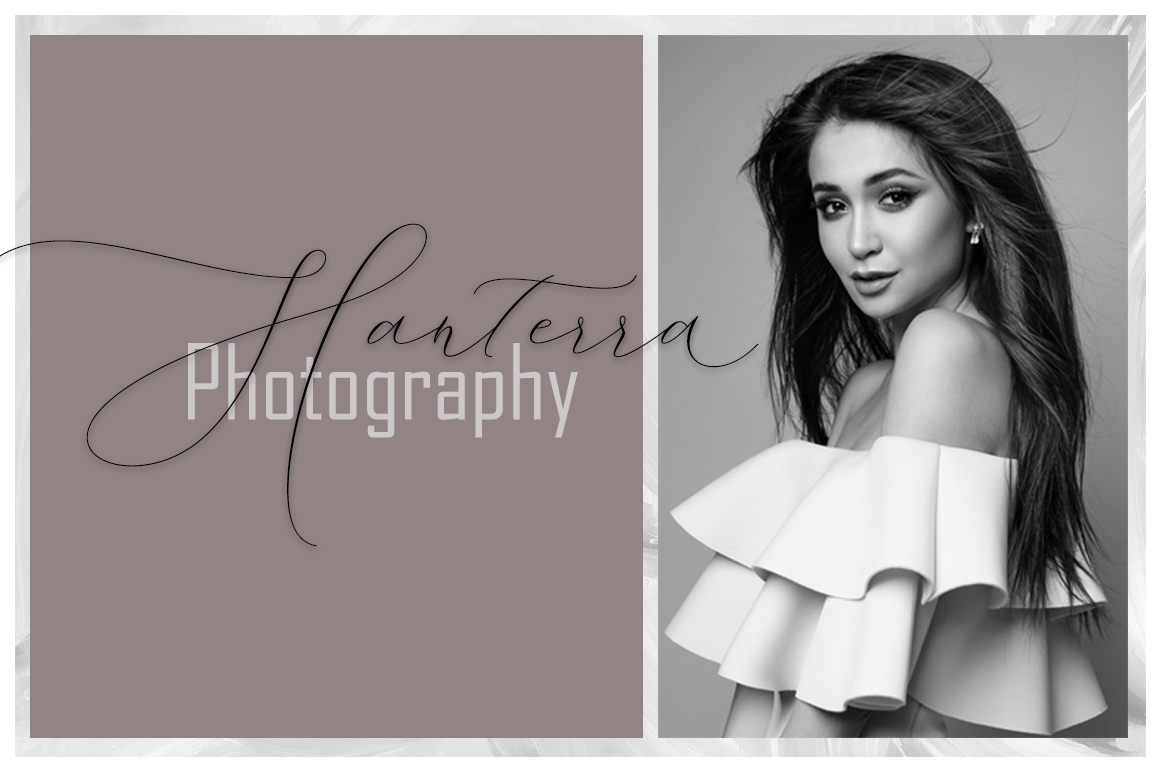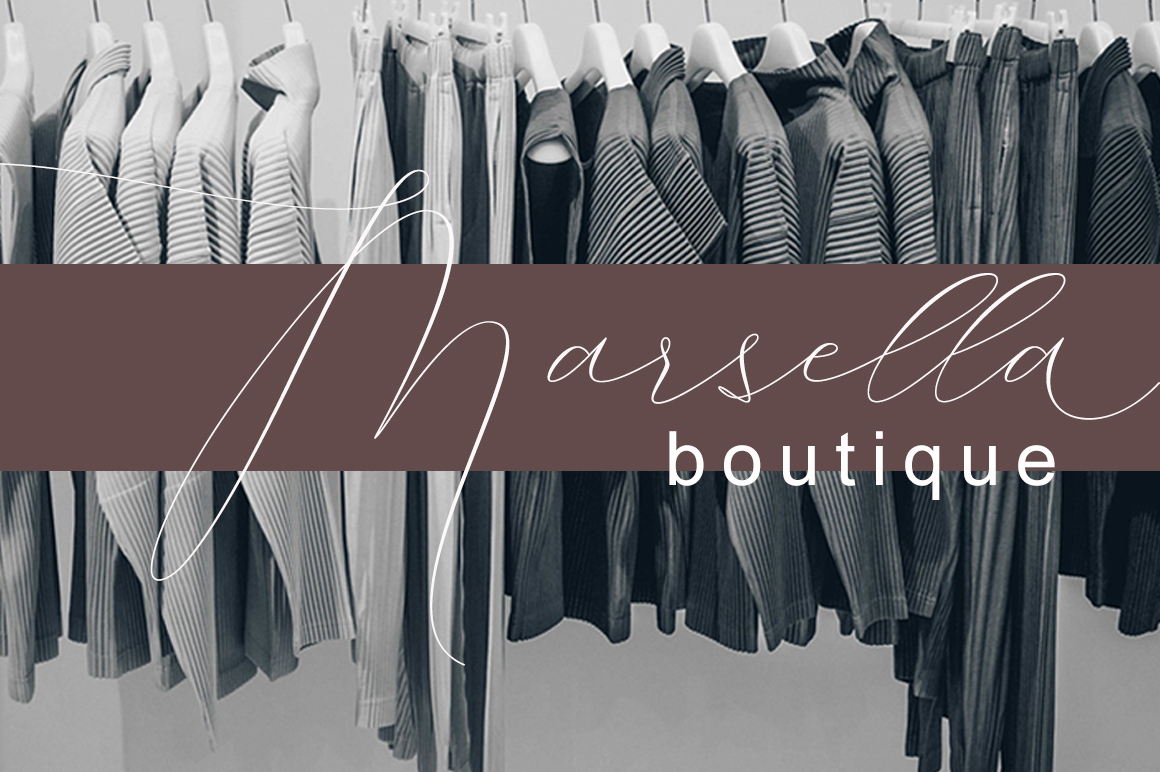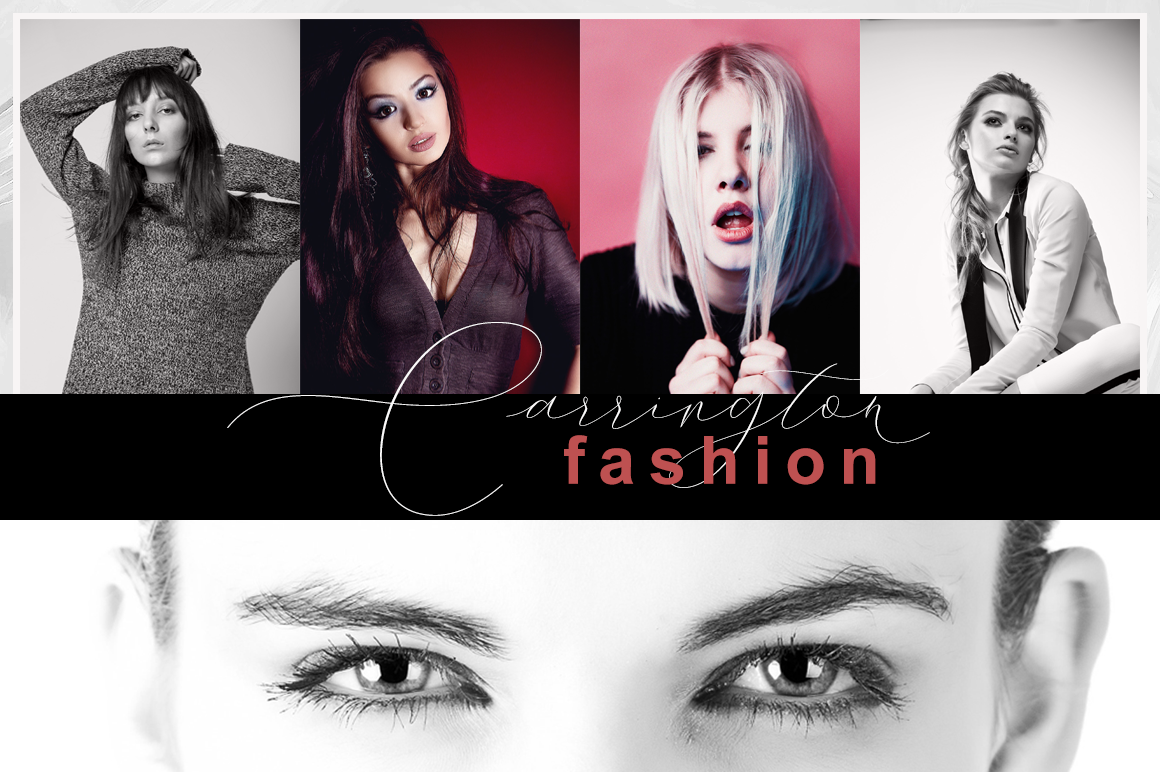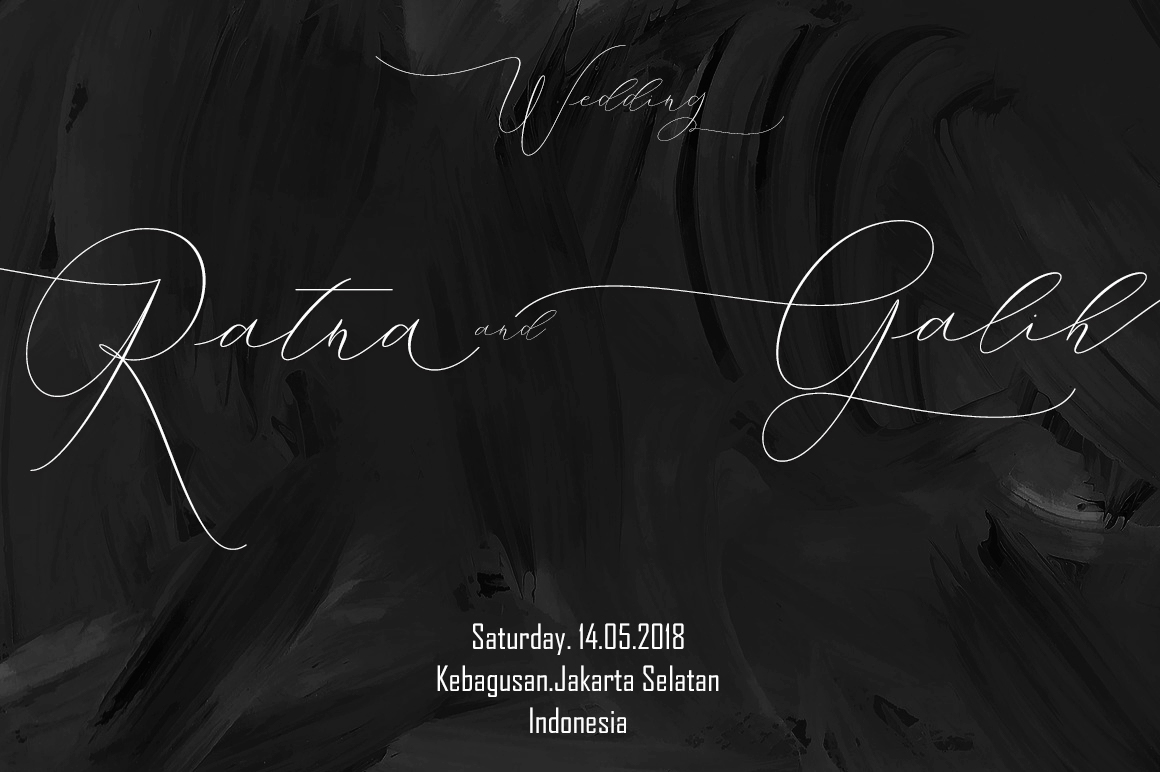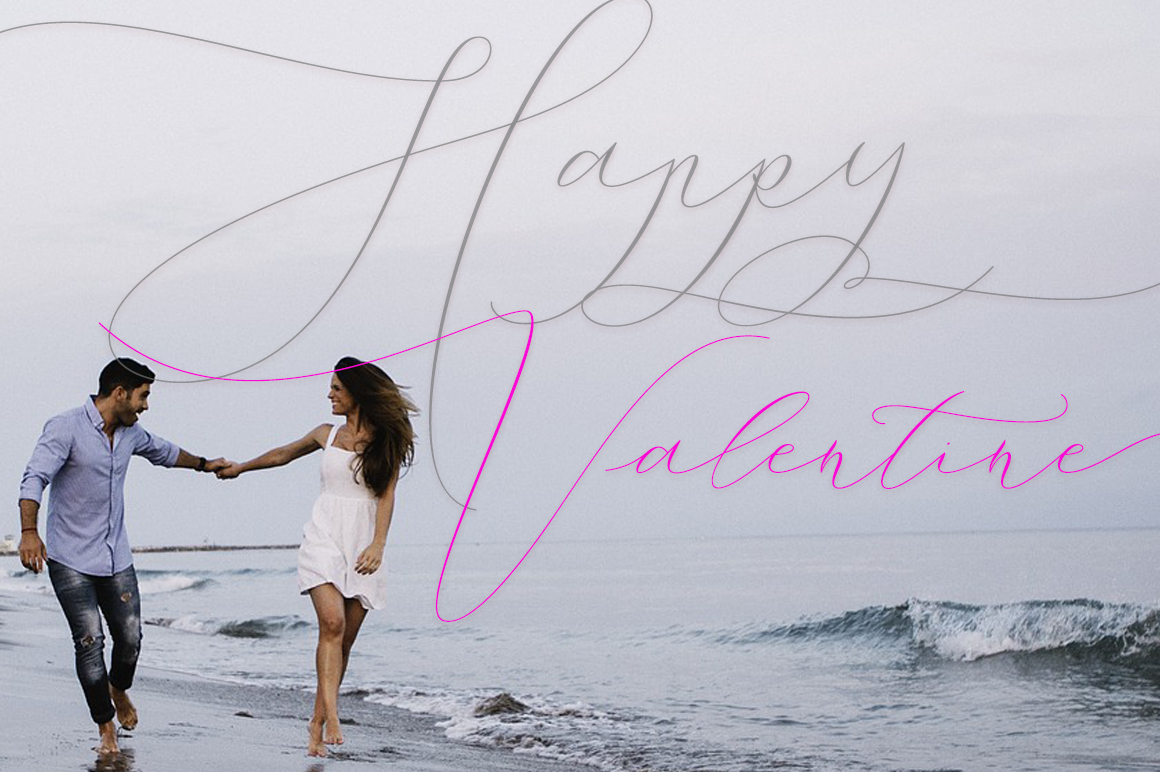
Jaqueline Font
About Jaqueline Font
Jaqueline is an extremely thin and delicate font, perfect for romantic and feminine designs. This font looks great when used as a display or signature for that perfectly editorial look.